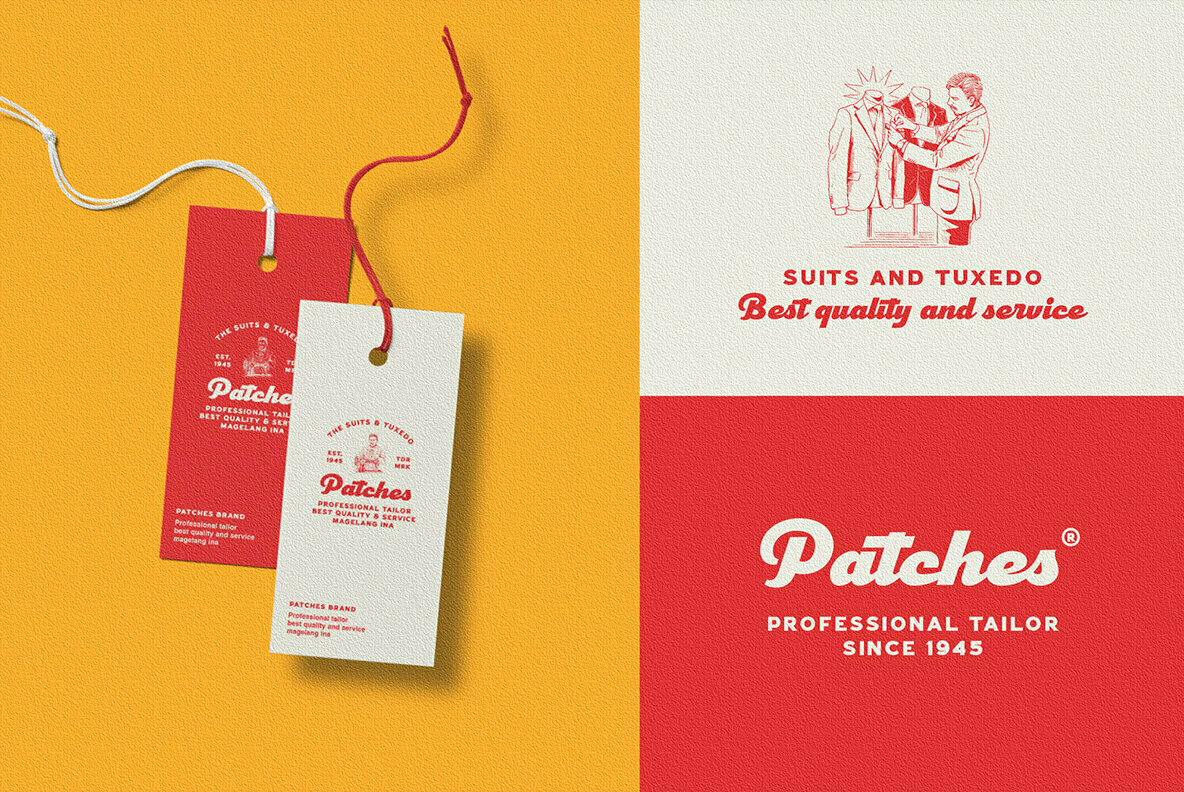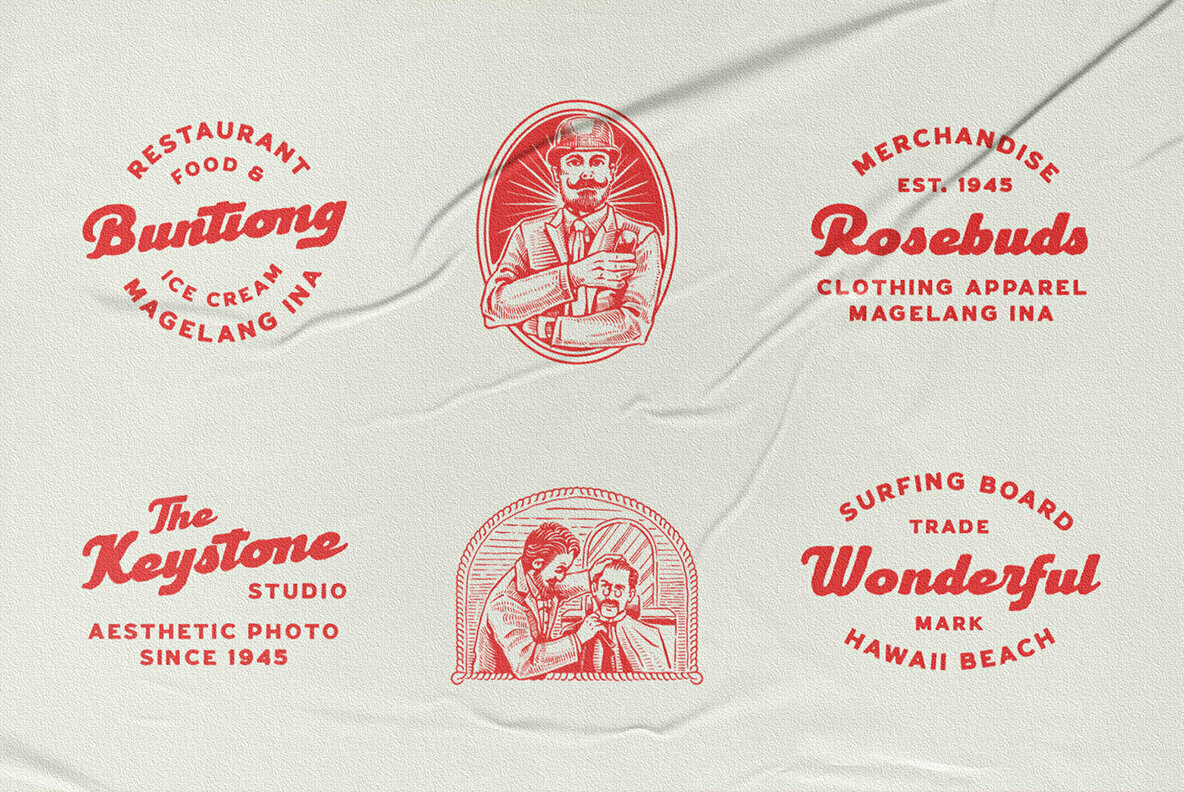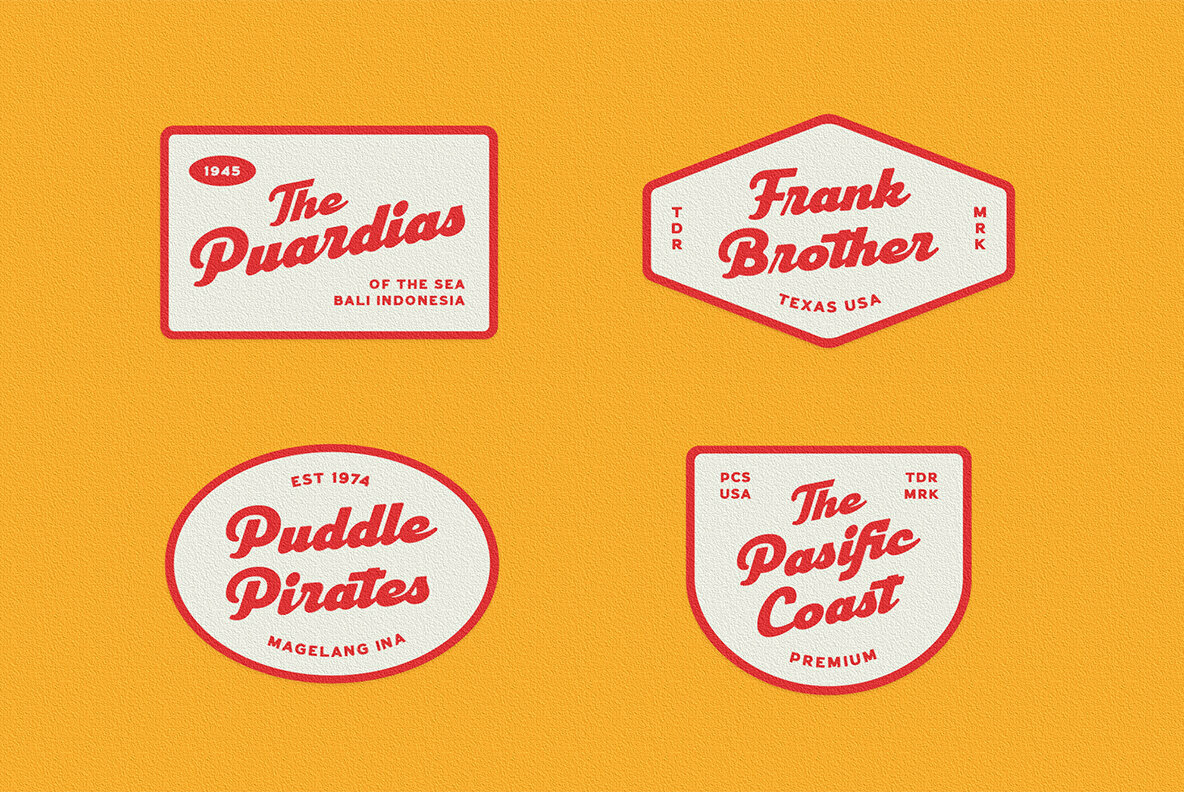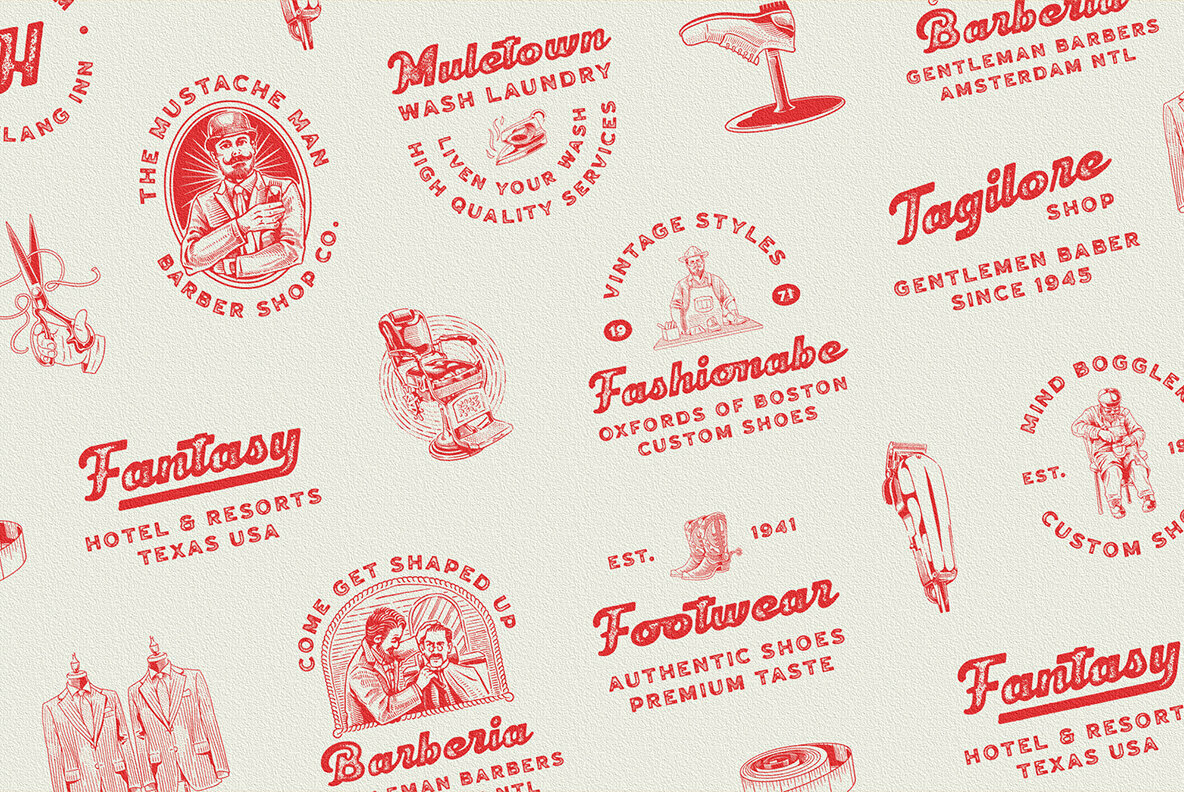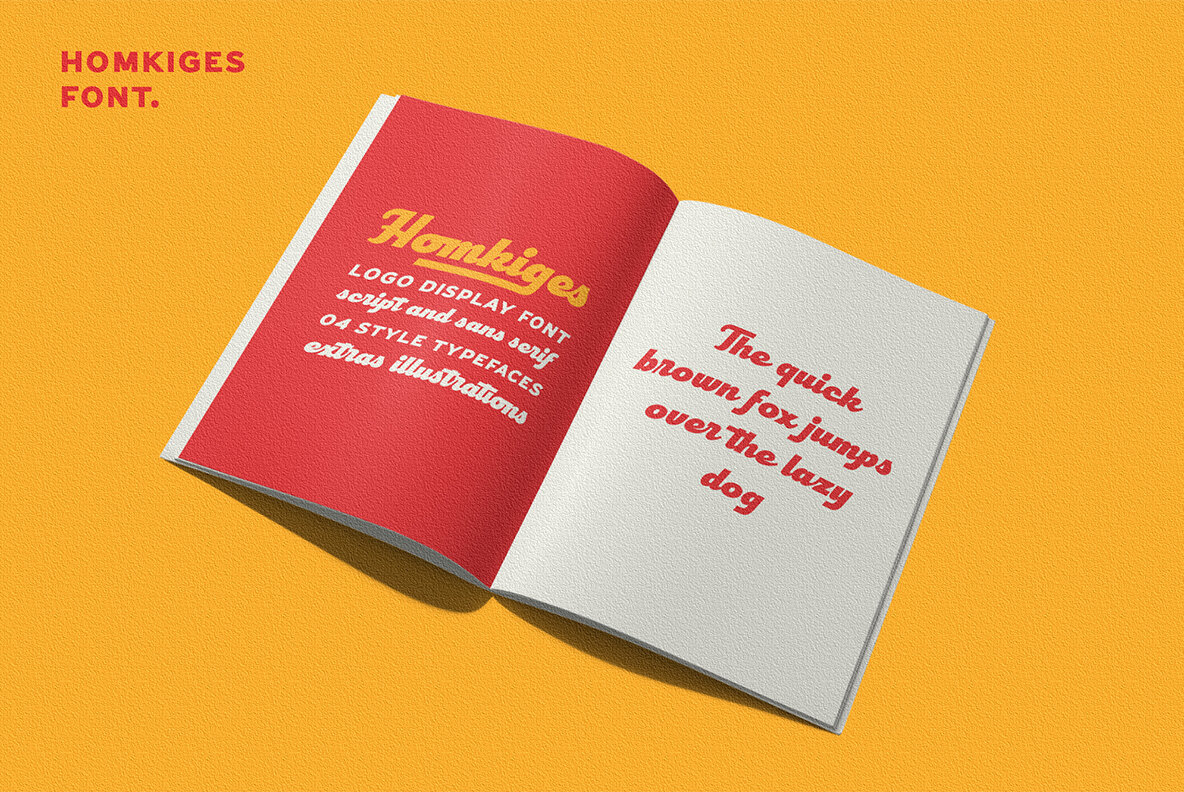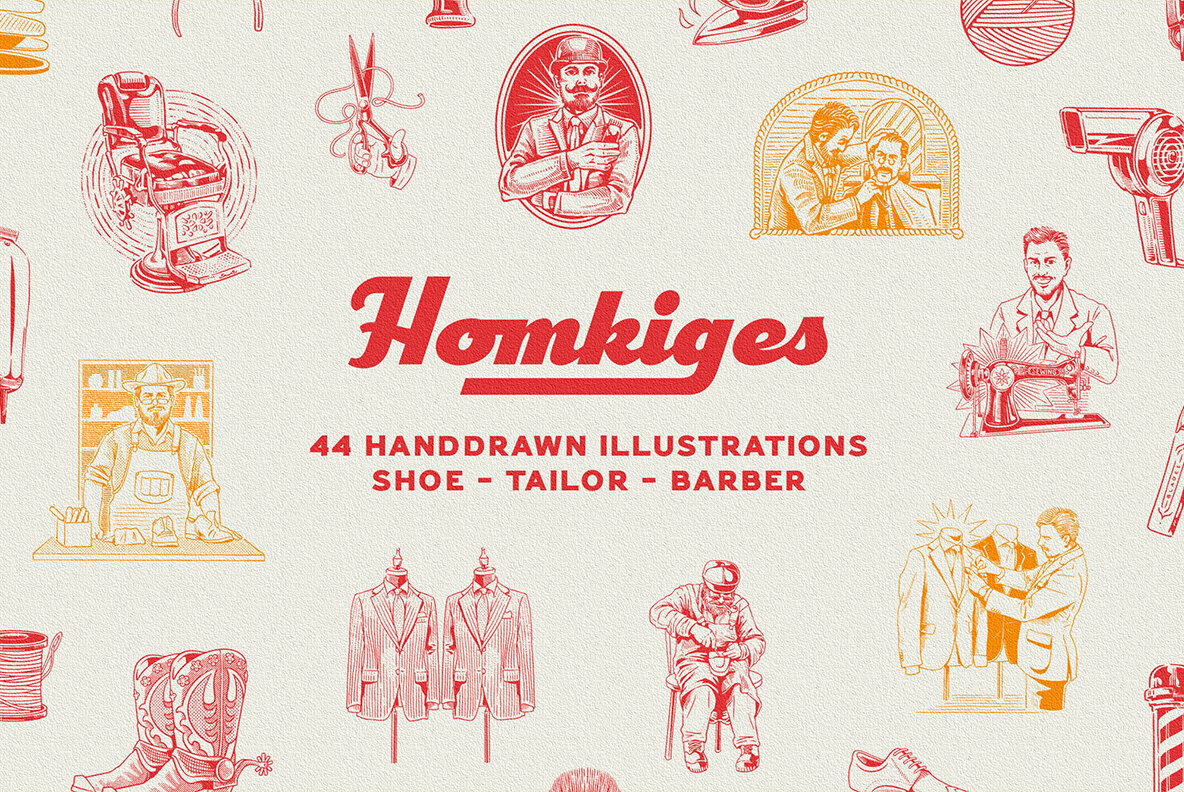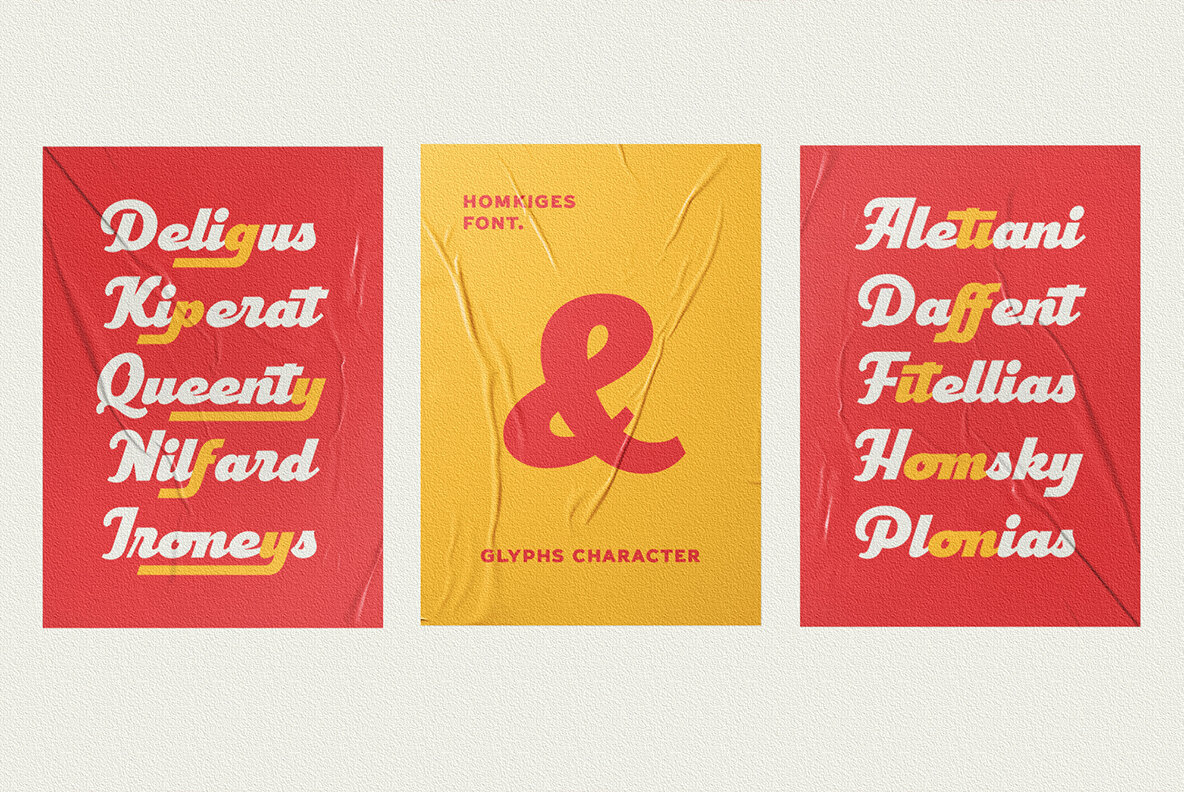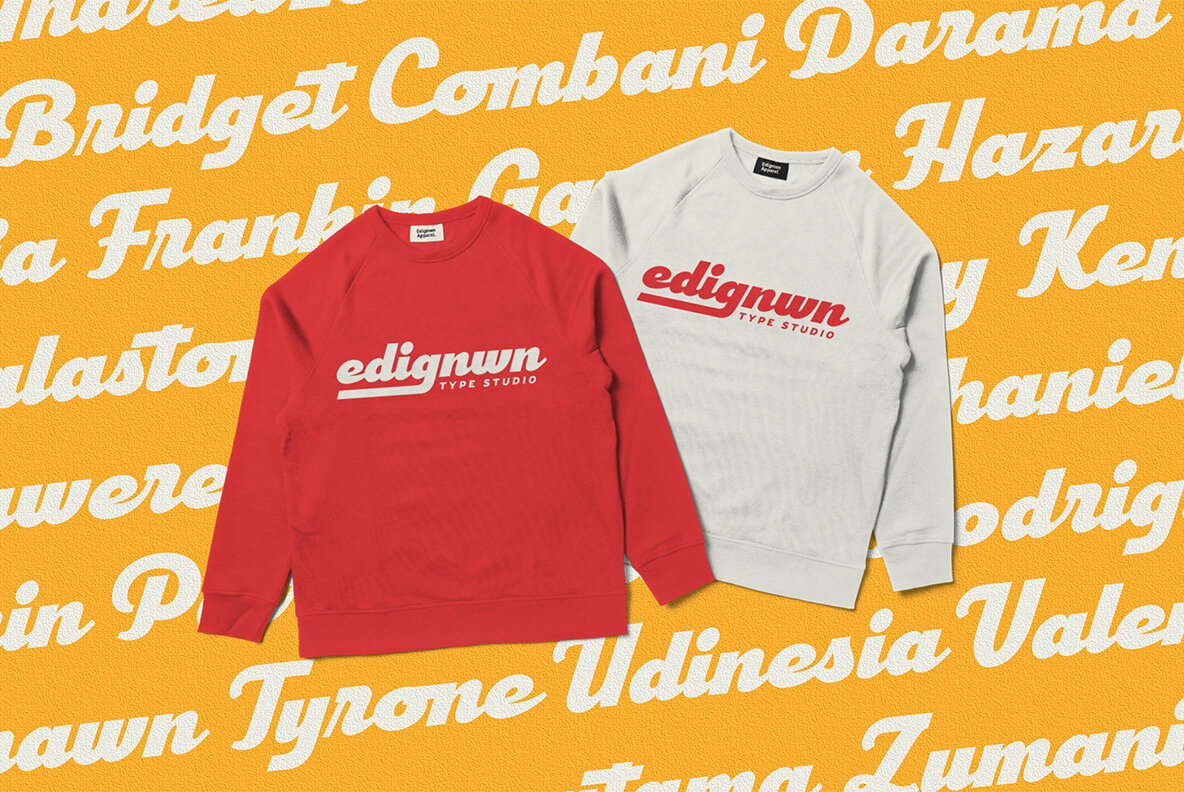
Homkiges Font
The Homkiges font collection, crafted by Edi Gunawan, is an engaging display font set ideal for logotype projects. This collection embraces both script and sans serif typography, each designed to provide a diverse array of visual styles. With four distinct typefaces—regular, rounded, rough, and stamp—Homkiges is adaptable to a variety of design aesthetics. Beyond its traditional font offerings, Homkiges enhances its utility with additional design extras. Specifically, it includes three packs of themed illustrations: shoe, tailor, and barber, adding creative flair to your projects. Whether you’re crafting logos, posters, labels, badges, or t-shirt designs, Homkiges offers a refined choice, enriched with alternates and ligatures in the script style, and varied stamp textures in the sans serif style. The Homkiges collection consists of 13 fonts, spread across script, sans serif, and dingbat formats, and comes supplemented with 44 hand-drawn illustrations in dingbat—a comprehensive suite designed to inspire and assist your creative endeavors.Homkiges: Versatile Display Font Collection